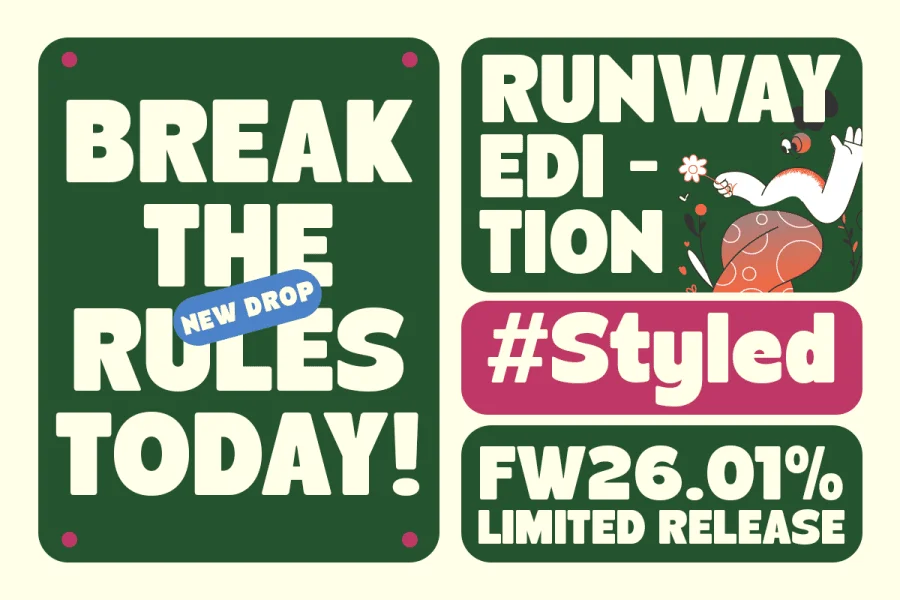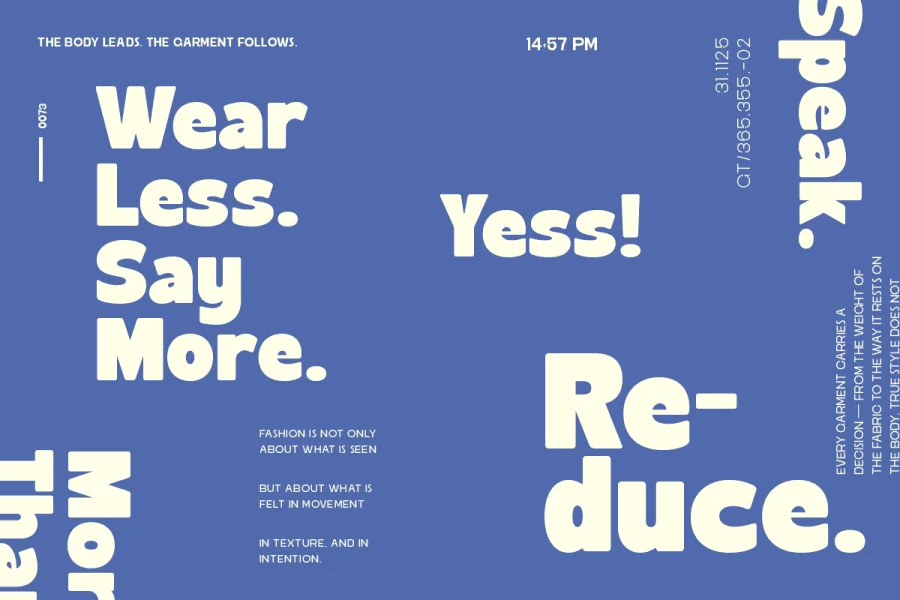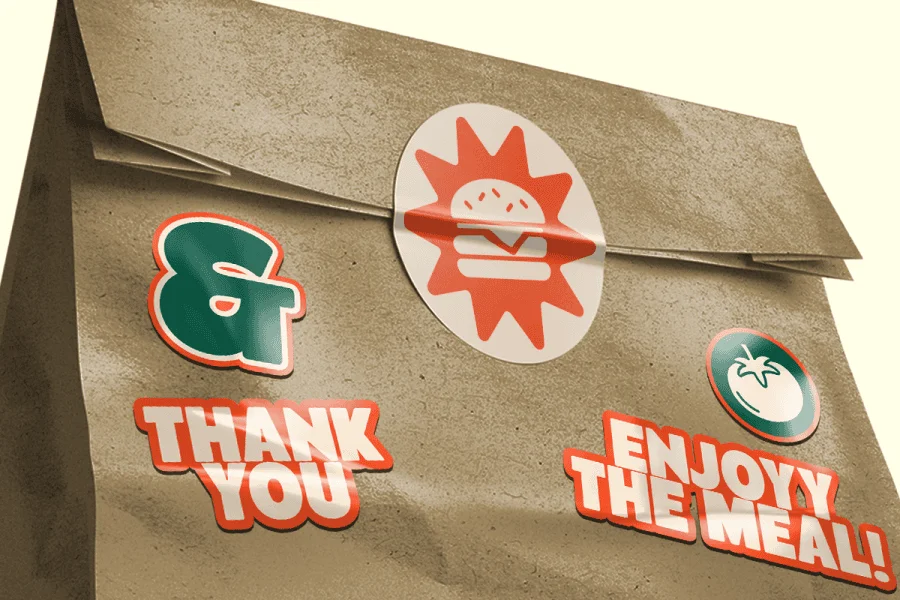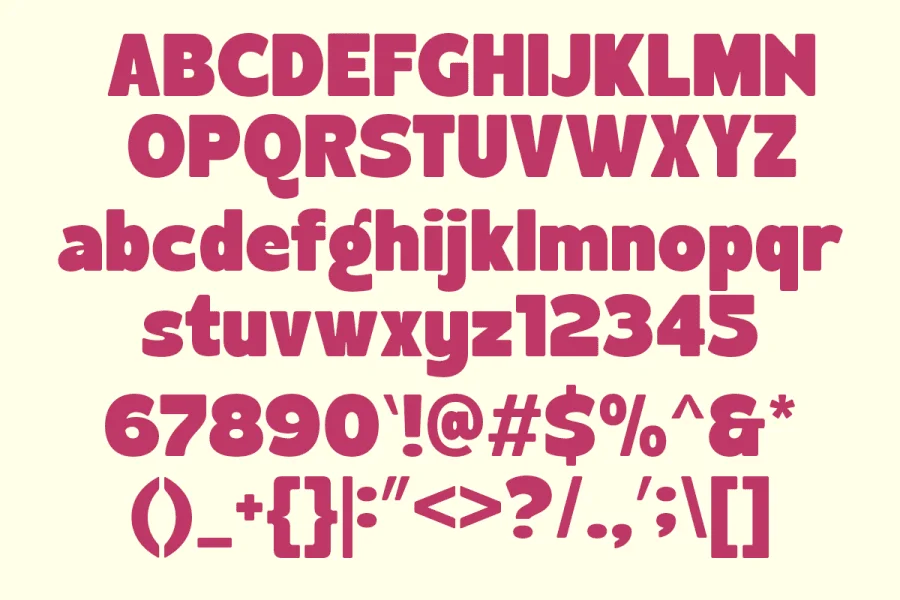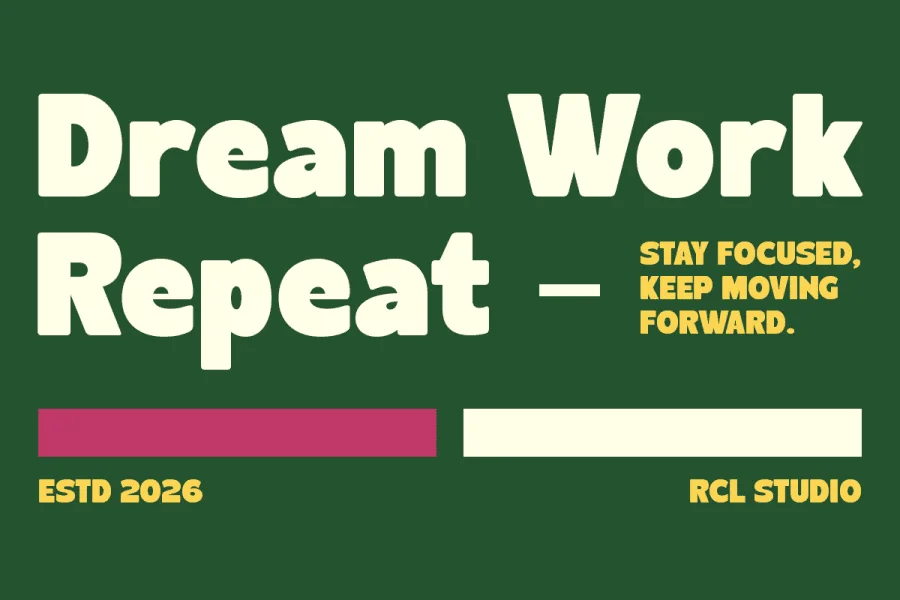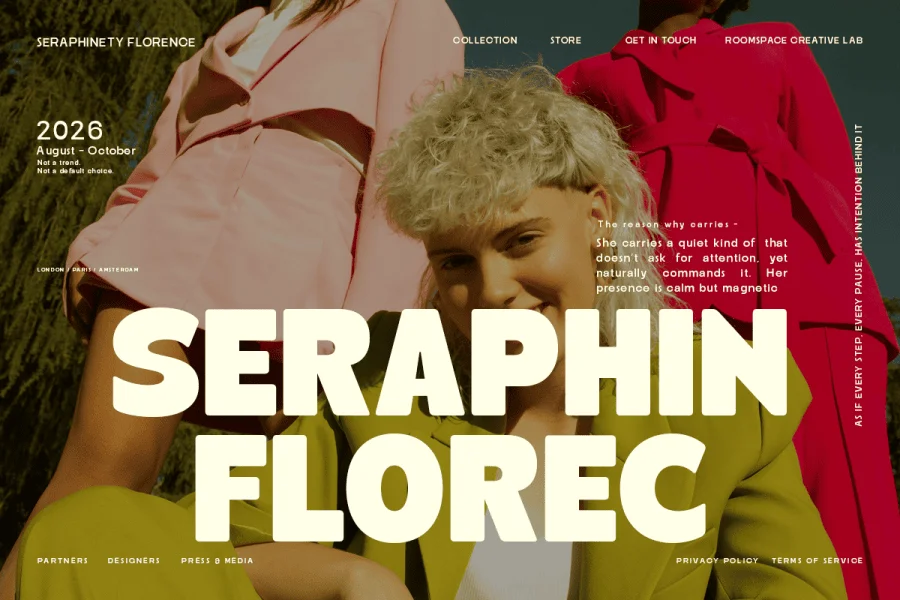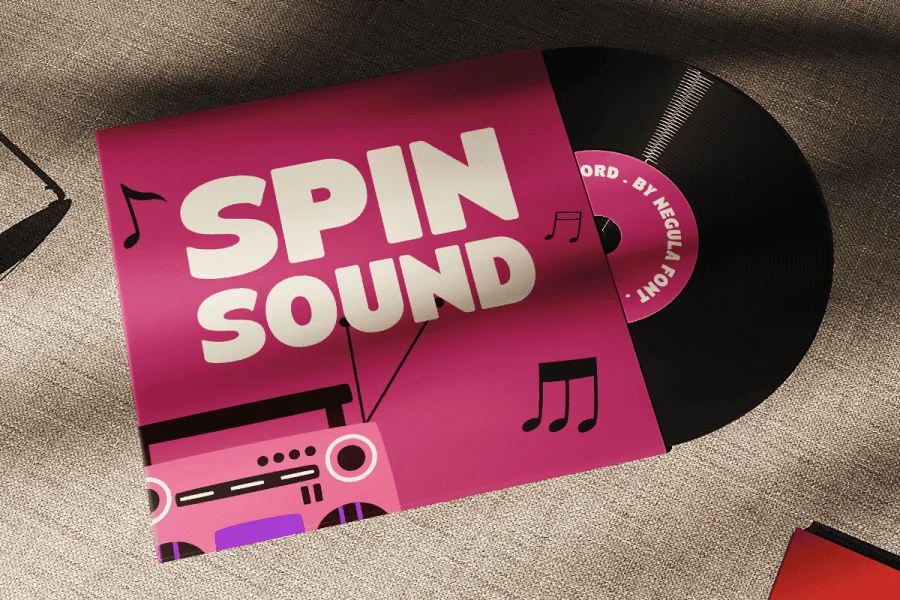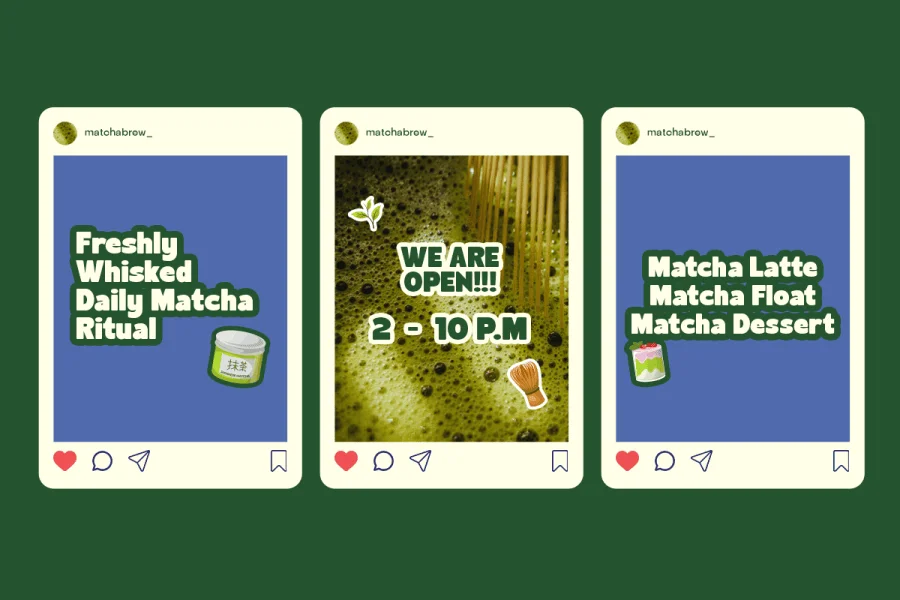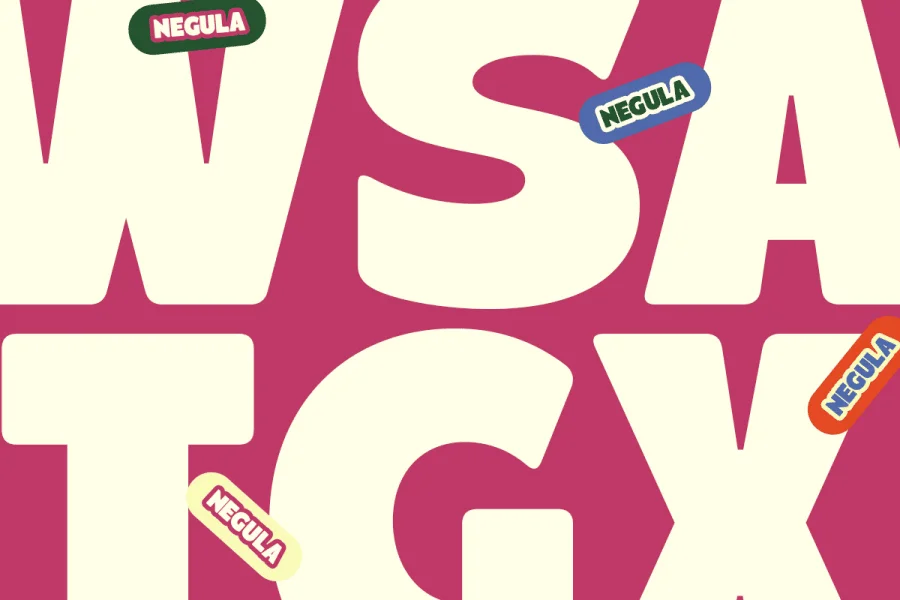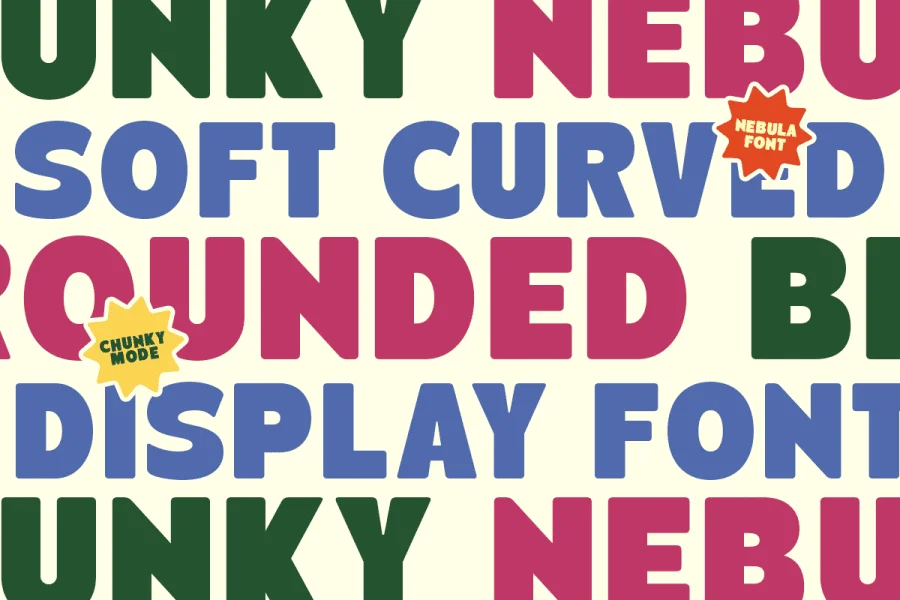
Negula is a bold, heavy-weight display sans-serif that balances structured geometry with soft, organic curves. Its letterforms feature thick, substantial stems contrasted by subtle, fluid transitions and rounded, blunt terminals. The low-contrast construction ensures a solid, impactful visual texture, while the slight modulation in curves adds a friendly, approachable cadence to the overall design. With its wide proportions and stable, grounded presence, the typeface commands attention while maintaining an easy-to-read clarity.
This typeface is perfectly suited for high-impact applications such as editorial mastheads, music album packaging, and vibrant social media graphics. Its playful yet confident character makes it an excellent choice for modern branding projects, poster designs, and creative advertising campaigns that require a touch of retro-modern personality and strong visual presence.